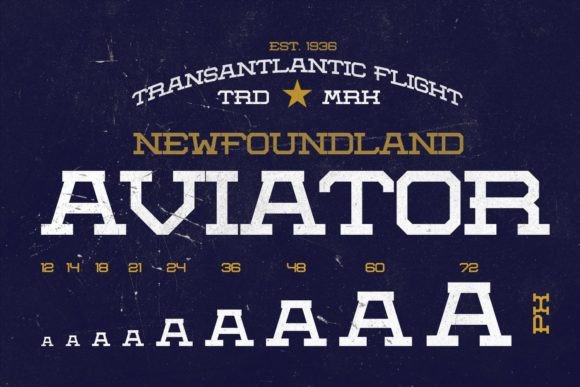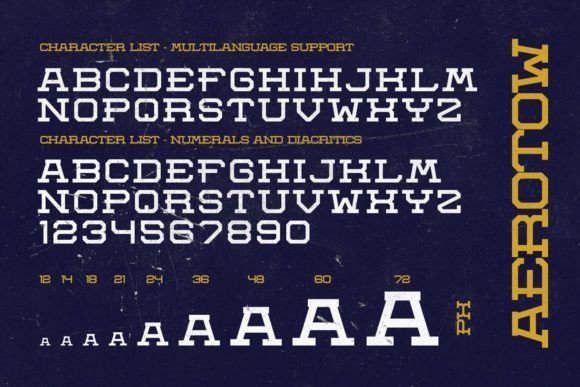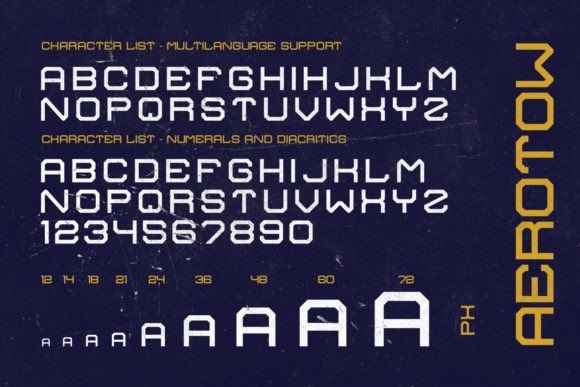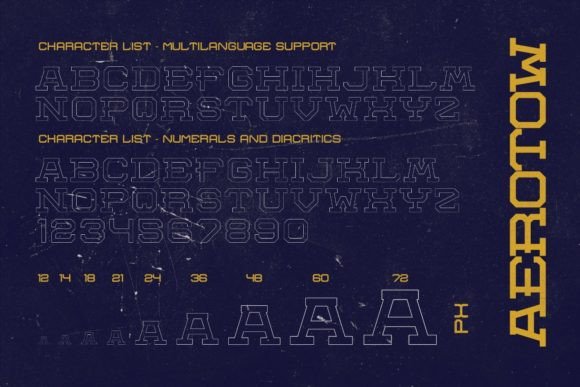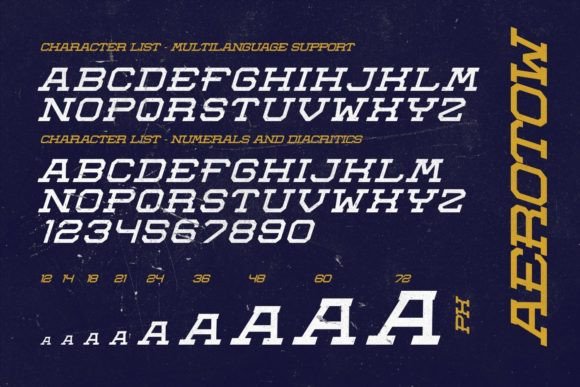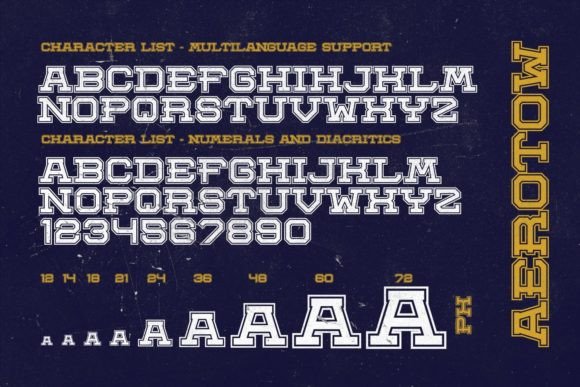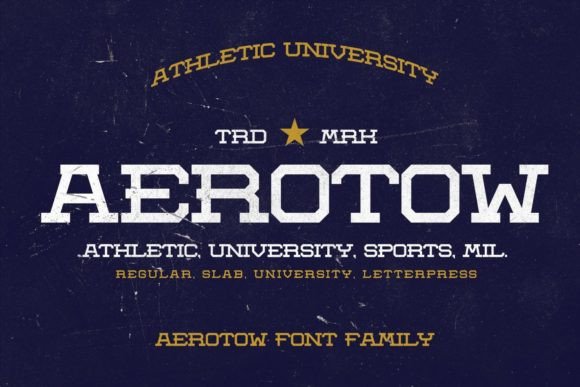
The Designer’s Delight: Aerotow Font
Have you ever been in the middle of a design project, and suddenly, you’re stuck on finding the perfect font? I recall a recent experience where I was working on a retro-themed poster, and my client’s request was simple: “Make it look like the 70s.” Easy peasy, right? Wrong! That’s when I stumbled upon the Aerotow Font, and trust me, it’s been a game-changer.
A Personal Encounter with Aerotow Font
Aerotow Font is a handcrafted vintage, letterpress, and slab serif font that instantly transported me back to the era of university sports, retro posters, magazines, postcards, and ads from the 70’s to the ’90s. Its unique charm and character are undeniable. The font stays in memory once you see it, making it ideal for display text, print, user interfaces, mobile devices, web design, and posters.
- ✨ Unique vintage vibe that’s hard to find in modern fonts
- ✅ Excellent for display text and headings
- ⚡️ Highly legible, even at smaller sizes
- 🎨 A set of optimal characters for your design in any layout
While Aerotow Font is amazing, there are a few things to keep in mind:
- ⚠️ Limited availability of special characters and symbols
A Practical Guide to Using Aerotow Font
The Designer Inspiration Behind Aerotow Font
Aerotow Font was inspired by the designer’s passion for retro culture and typography. Growing up, the designer was fascinated by university sports posters, vintage magazines, and ads from the 70’s to the ’90s. They wanted to create a font that captured the essence of this era, while still being versatile and easy to use.
Q: What is Aerotow Font best used for?
A: Aerotow Font is ideal for display text, print, user interfaces, mobile devices, web design, and posters.
Q: Is Aerotow Font suitable for body text?
A: While Aerotow Font is highly legible, it’s best suited for headings and display text. For body text, consider a font with more traditional serifs.
Q: Can I use Aerotow Font on mobile devices?
A: Yes, Aerotow Font is optimized for use on mobile devices, making it perfect for designing mobile-friendly interfaces and apps.